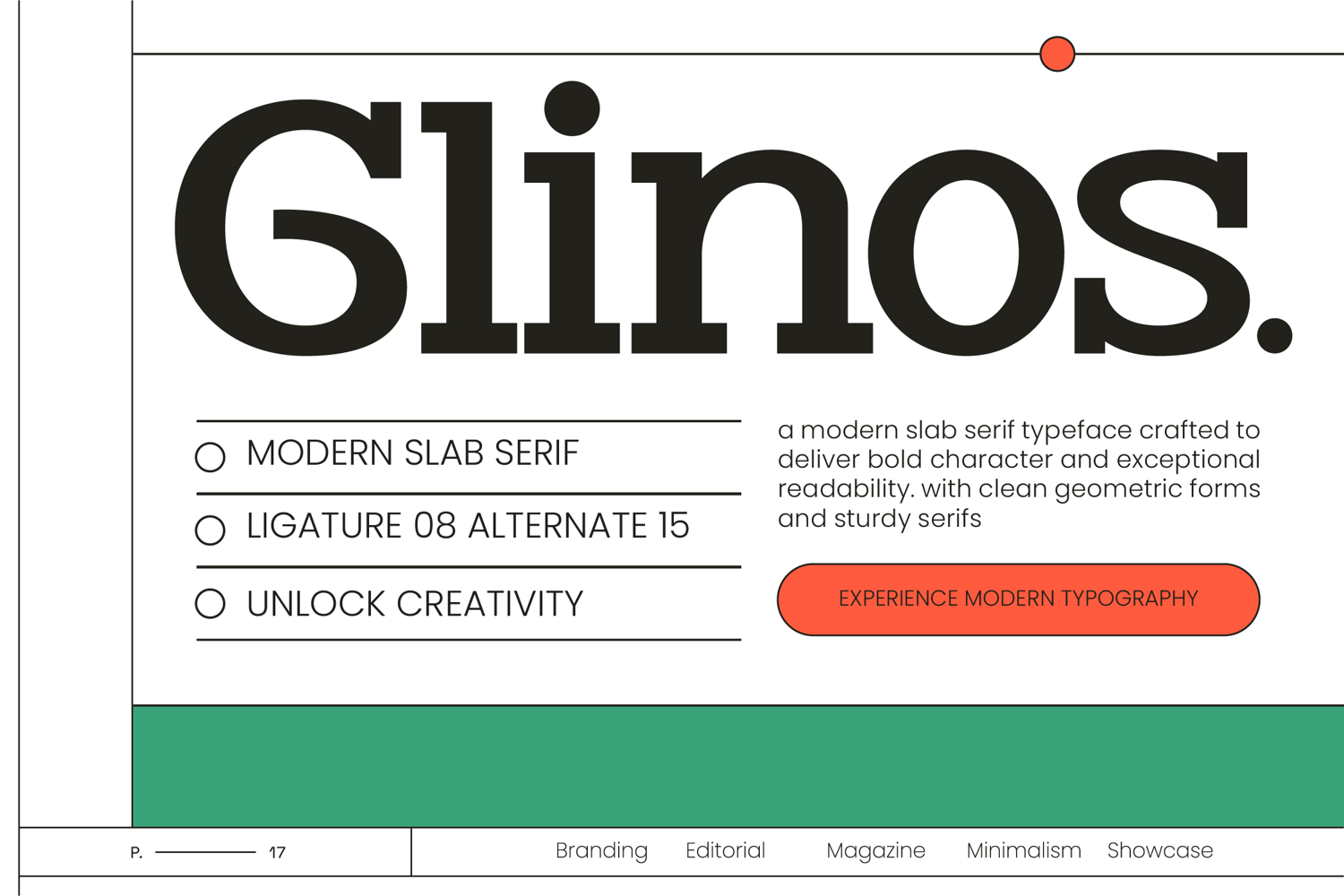
Glinos - Modern Slab Serif
Redefine your visual identity with a typeface designed for maximum impact and clarity. Glinos - Modern Slab Serif is a masterfully crafted modern slab serif typeface that combines clean geometric forms with sturdy serifs to deliver a bold character. This font is engineered for exceptional readability, ensuring that every message is conveyed with authority and precision, whether in print or across digital platforms.
Elevate your design projects to new heights of sophistication and professional appeal. Glinos - Modern Slab Serif is the ideal choice for luxury branding, editorial design, and high-end magazine layouts. Its unique aesthetic makes it perfect for creating high-impact headlines, sophisticated packaging, and minimalist showcases that require a commanding presence and a contemporary edge.